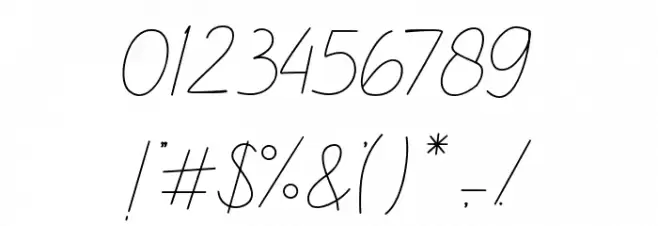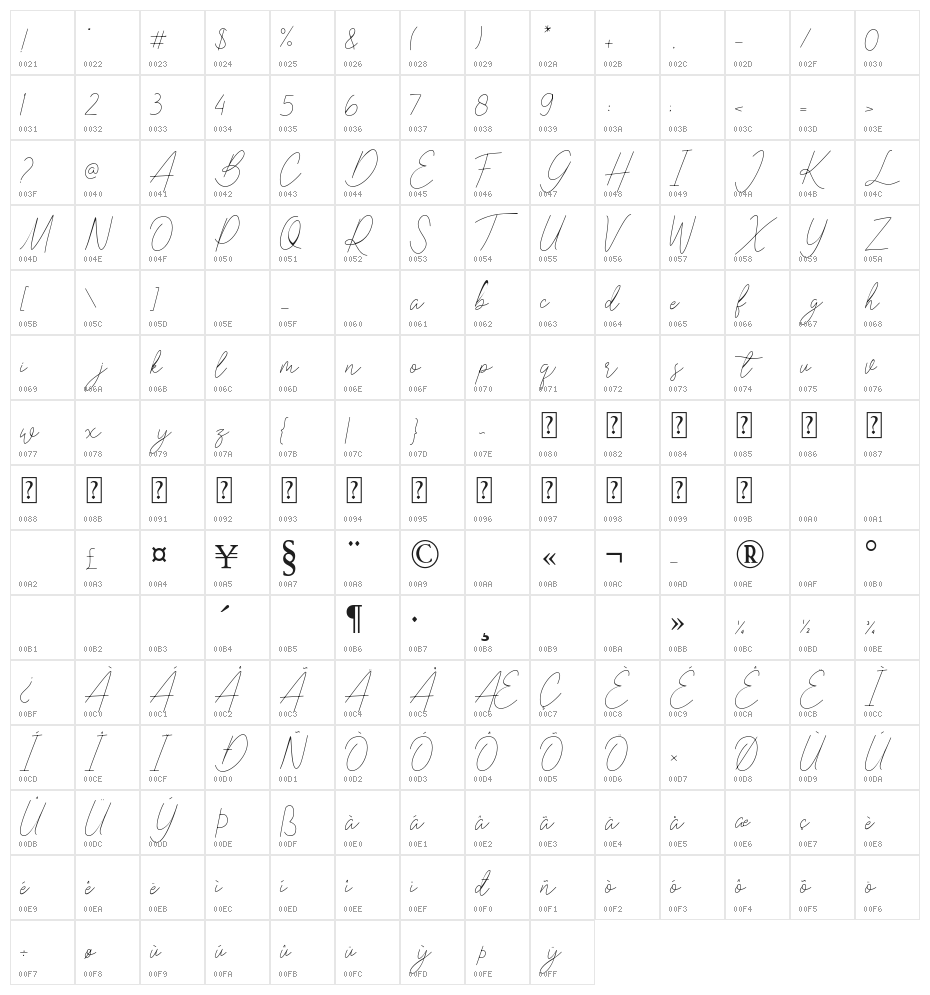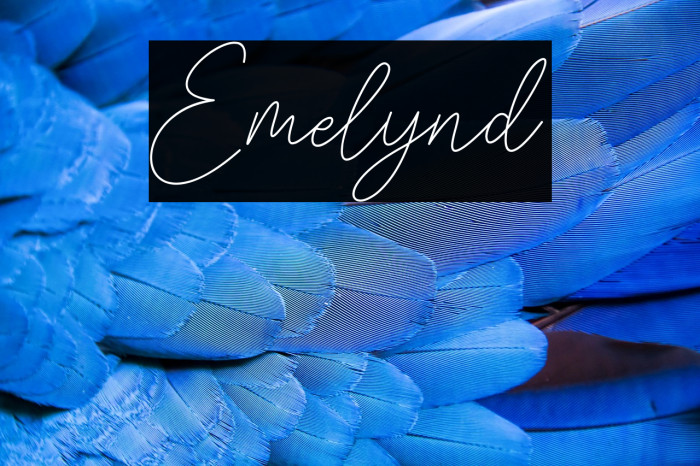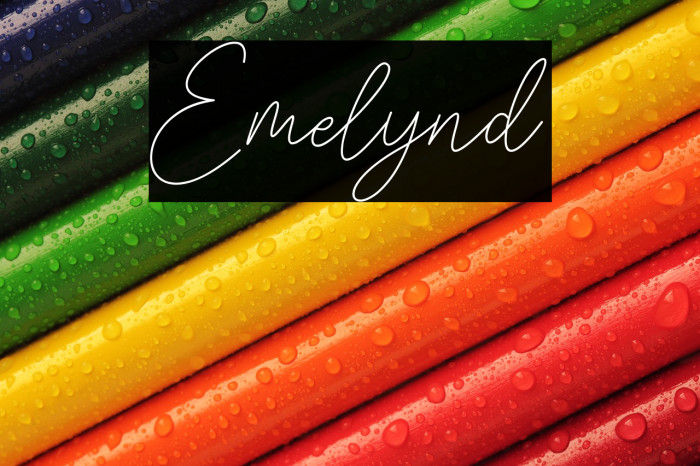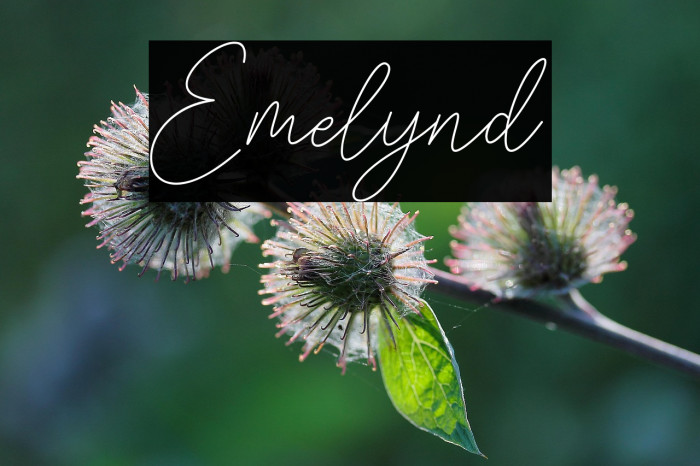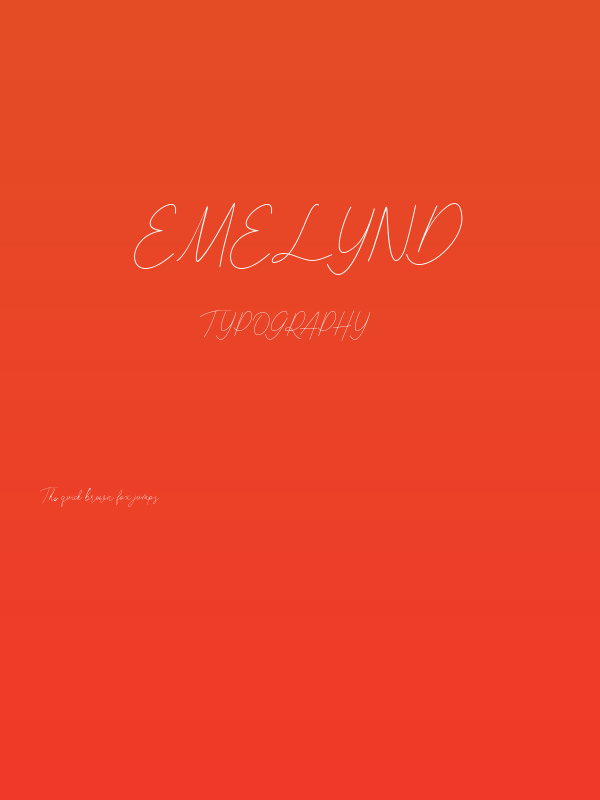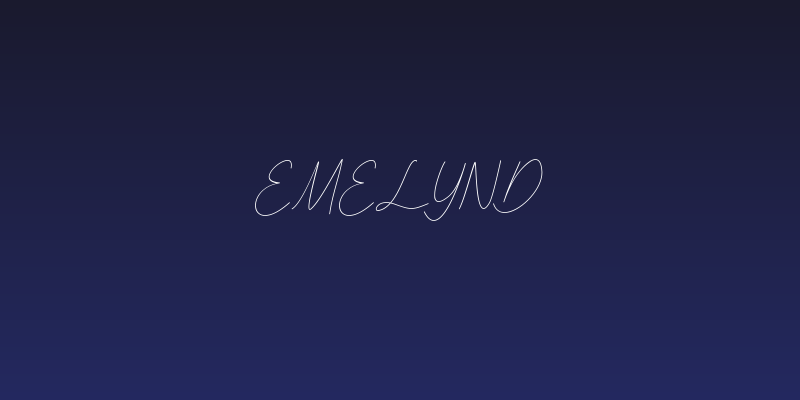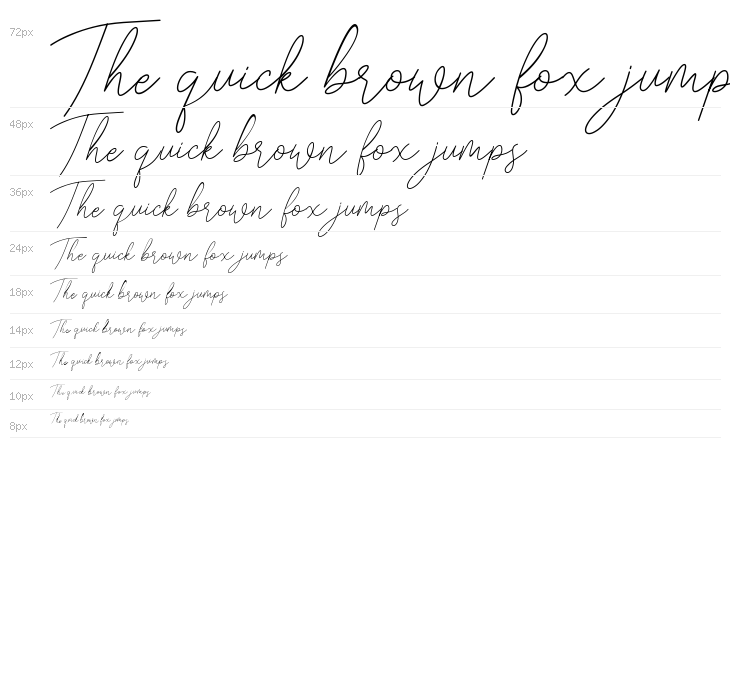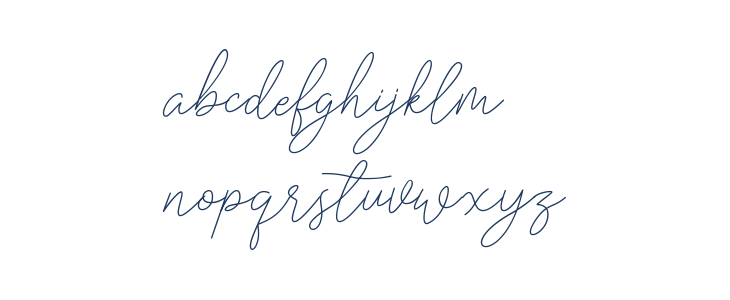
Emelynd Font
Emelynd Description
This font features a delicate and flowing script style, characterized by its elegant and smooth curves. The uppercase letters are tall and slender, with a slight slant that adds a sense of motion and grace. The lowercase letters are more intricate, with loops and swashes that enhance the font's decorative appeal. The numerals are consistent with the uppercase letters, maintaining a cohesive look. Special characters are thoughtfully designed to match the overall aesthetic, making this font suitable for a variety of creative applications.
Overall StyleElegant
Use CaseLogos, Invitations, Decorative text
Proposed ProjectsIdeal for wedding invitations, greeting cards, branding, and elegant packaging designs.